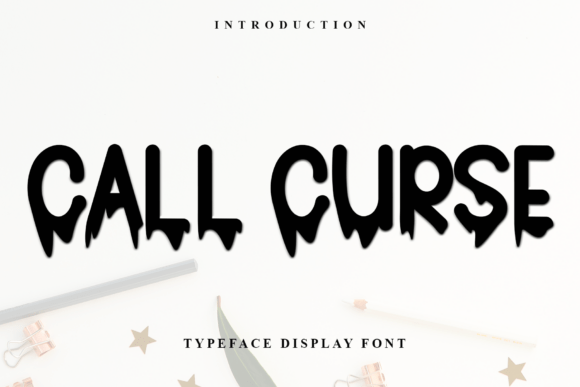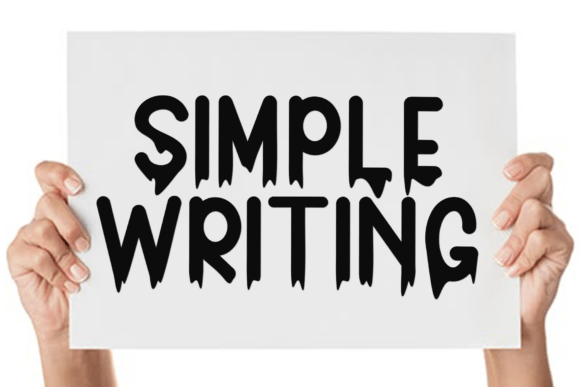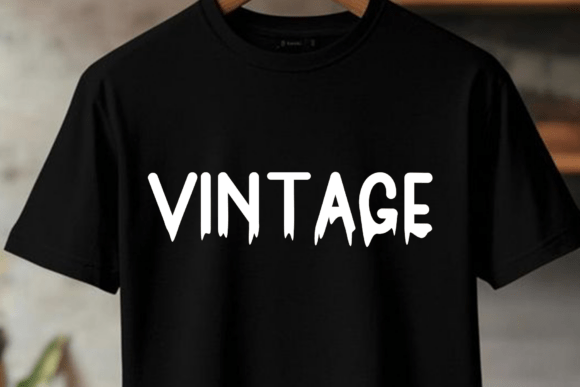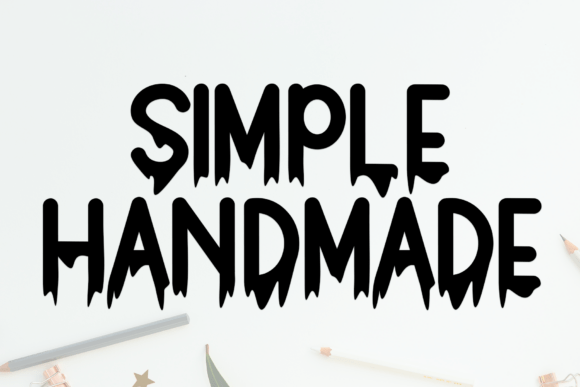
Creepy Curse Font
About the Creepy Curse Font
Add a touch of class to your work with the Creepy Curse Font, a truly exceptional typeface. Creepy Curse is a sweet and friendly handwritten font. Its natural and unique style makes it incredibly fitting to a large pool of designs. The only limit is your imagination!
Creepy Curse’s friendly, handwritten style excels in projects requiring a touch of playful charm. Ideal applications include children’s books, greeting cards, logos for sweet shops or artisan crafts, and packaging for whimsical products. It also works well in short headlines or taglines where its unique character can shine. However, its informal nature makes it unsuitable for large blocks of body text or UI elements where readability is paramount.
To complement its informal energy, pair Creepy Curse with a clean sans-serif like Open Sans for body text or a more geometric sans-serif such as Futura for a modern contrast. For a more vintage feel, a classic serif font like Garamond could provide a sophisticated counterpoint.
The overall personality is best described as light-hearted and approachable, yet undeniably unique. Avoid pairing it with overly serious or formal typefaces; instead, opt for fonts that maintain a playful yet balanced aesthetic.